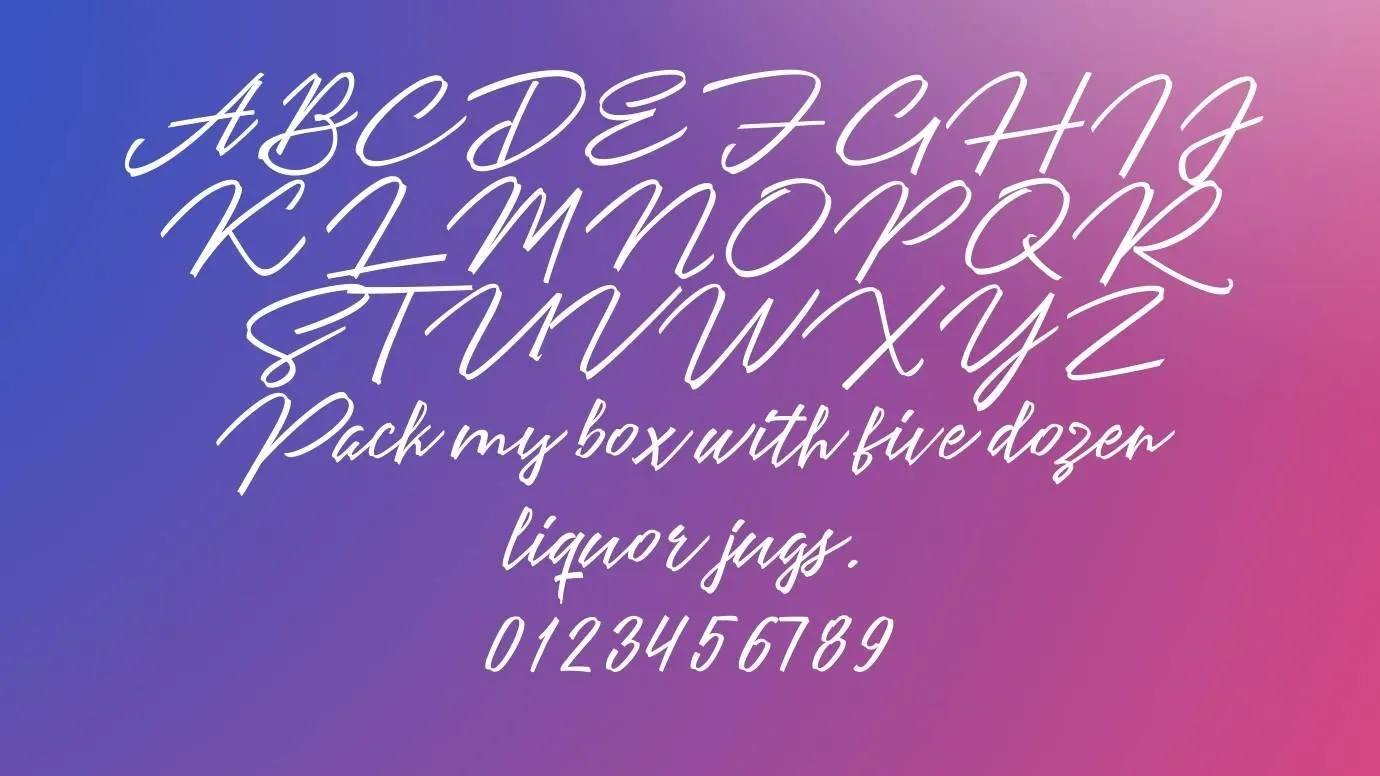
Introducing Angelina Script Font! This is a handwritten typeface that was designed by a famous font designer known as Angie Durbin. This amazing font has thin italic characters. It was the first time posted by Anja Denali in 1995. It has 93 characters including uppercase letters, lowercase letters, brackets, numbers, and 07 special characters.
Angelina Script typeface has 102 glyphs along with 1048 units of one em. This modern font is an exceptional handwritten typeface that also looks like the script font. It has particular look that is so useful for different style purposes.
The super amazing thing about this font is that it is the best for the cloth industry for formal styling and designing purposes. It gives a free and helpful service that is a generator tool. This service is suitable for text graphics. The budweiser font is the similar font to this typeface and it is best for pairing.
Reason to Use Angelina Script Font
You can use this font for making modern designs due to its traditional look. It is always best for text designs as compared to other handwritten fonts. You can use this font for long and short-type paragraphs. By using this font, you can give a natural taste to your projects and designs.
It is also suitable for making gorgeous logo designs, attractive business cards, official website templates, certificate designs, and gift card designs. By utilizing this font, you can create many design projects like theme designs, ebook covers, invoice designs, brochure layouts, and banner designs in Canva and CorelDraw.
Angelina Script Font View
Angelina Script Font Family (Includes Total 02 Types)
- Angelina-Script Regular
- Angelina Script Bold
What is the closest font to Angelina Script Font?
A large number of fonts are alternatives to this typeface but atatrk font is the most similar to this typeface.
What kind of font is Angelina Script Font?
This is handwritten type font that was designed by a famous and well-known designer known as Angie Durbin.
Where can we use Angelina Script Font?
You can use this amazing font for different interesting purposes like logo designs, postcard designs, wall murals designs, blouse designs, t-shirt designs, and clothes designs.